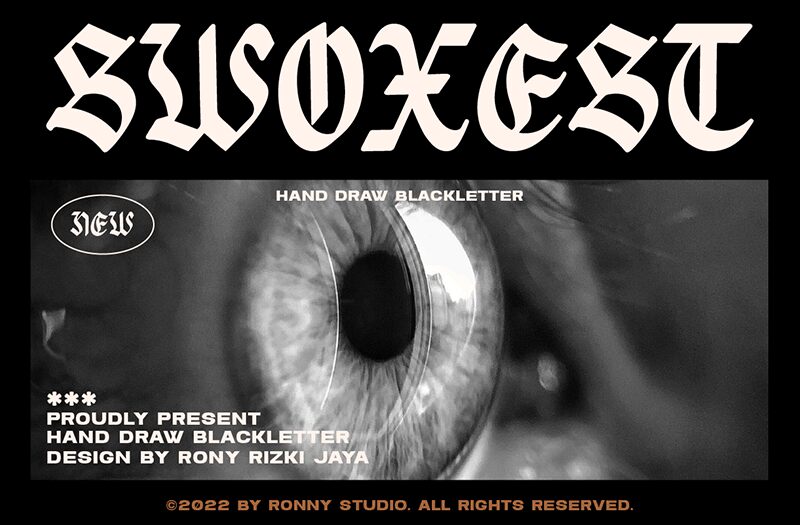
Swoxest is a striking gothic font designed by Ronny Studio, blending modern flair with traditional elegance. Its bold and dynamic letterforms exude a sense of strength, while the sharp angles and graceful curves create an eye-catching contrast that draws attention. The font’s expansive presence gives it an assertive character, perfect for creating impactful headlines or captivating logos.
Its unique style lends itself to a variety of design applications-from contemporary brand identities to innovative poster designs. Whether used in fashion marketing or event promotional materials, Swoxest serves as an unforgettable visual element, embodying both sophistication and edgy personality. Its aesthetic versatility ensures it stands out in any context, making it ideal for designers looking to make a memorable impression.